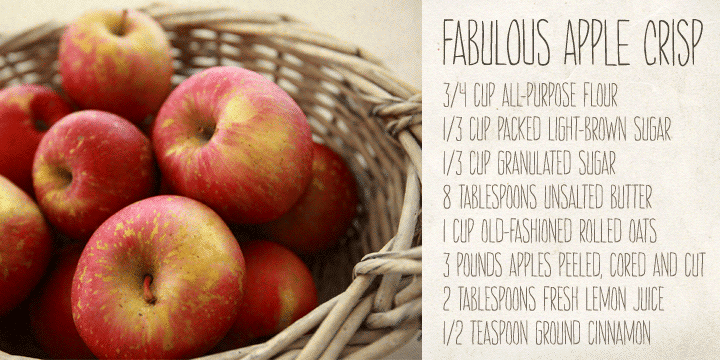
Amarelinha is a hand display font family. This typeface has two styles and was published by PintassilgoPrints.
Amarelinha is a casual and dynamic handwritten font, charming in its own peculiar way. It is an unicase alphabet, counting two versions for each letter, easily accessible through keyboard upper and lower keys. It also has a pocketful of automatic ligatures, providing an organic and spontaneous hand lettering feel.
Available in two handy weights.